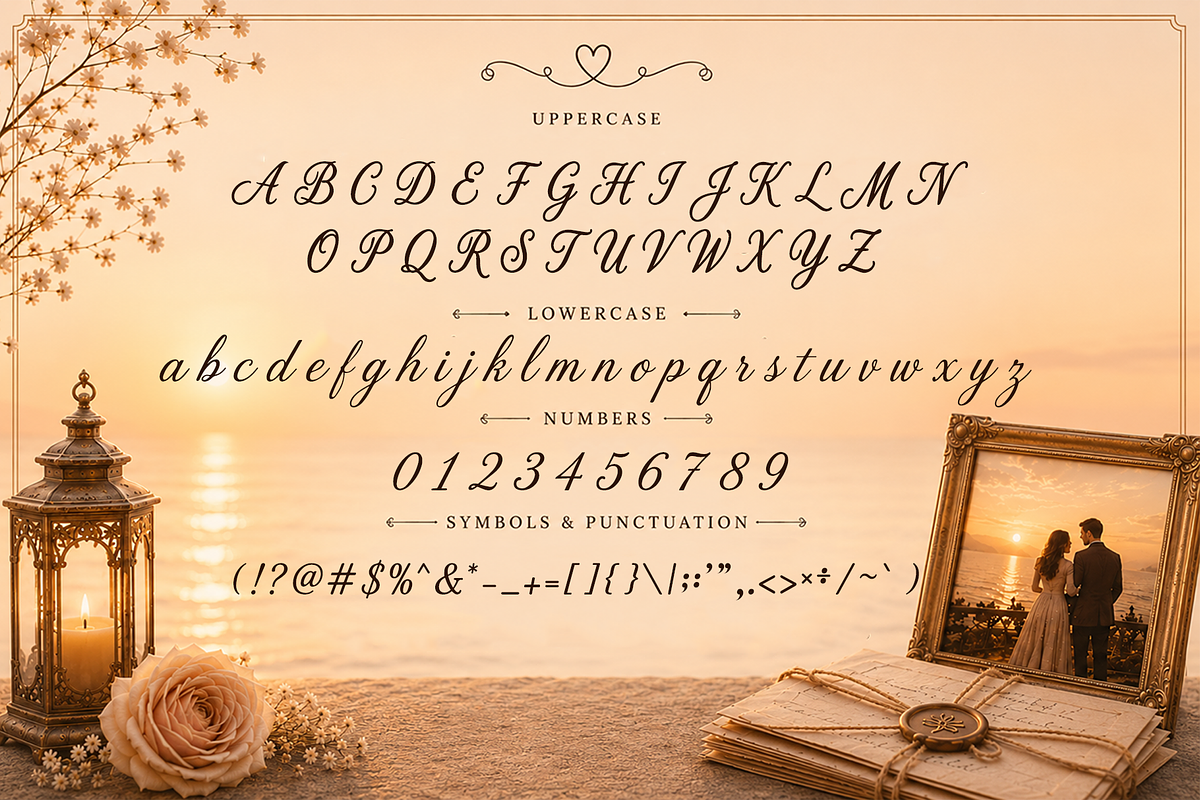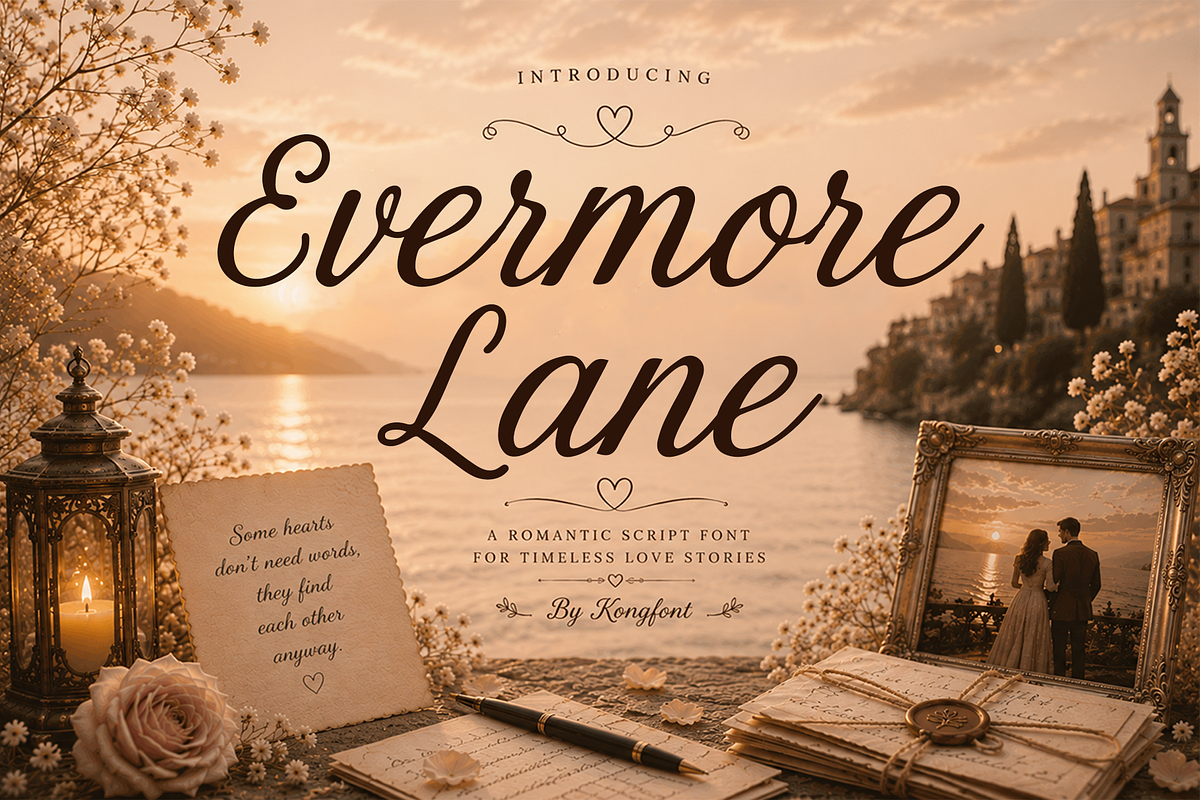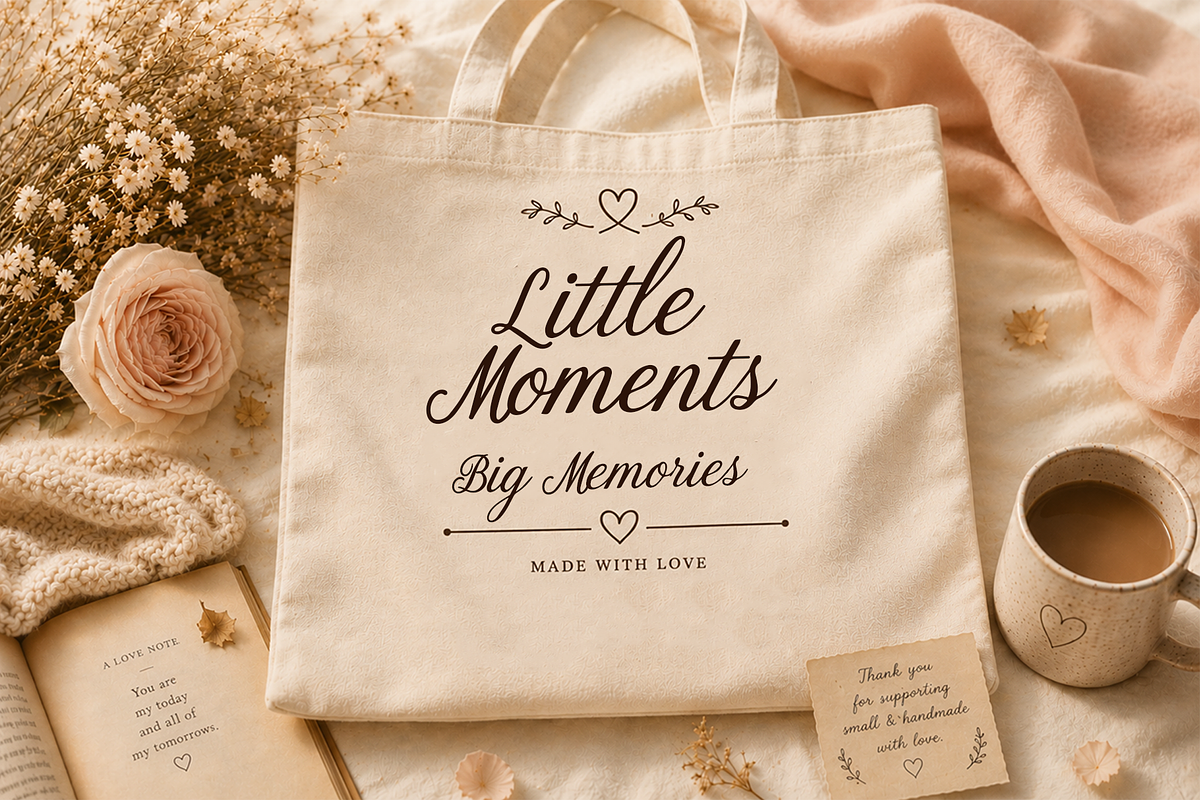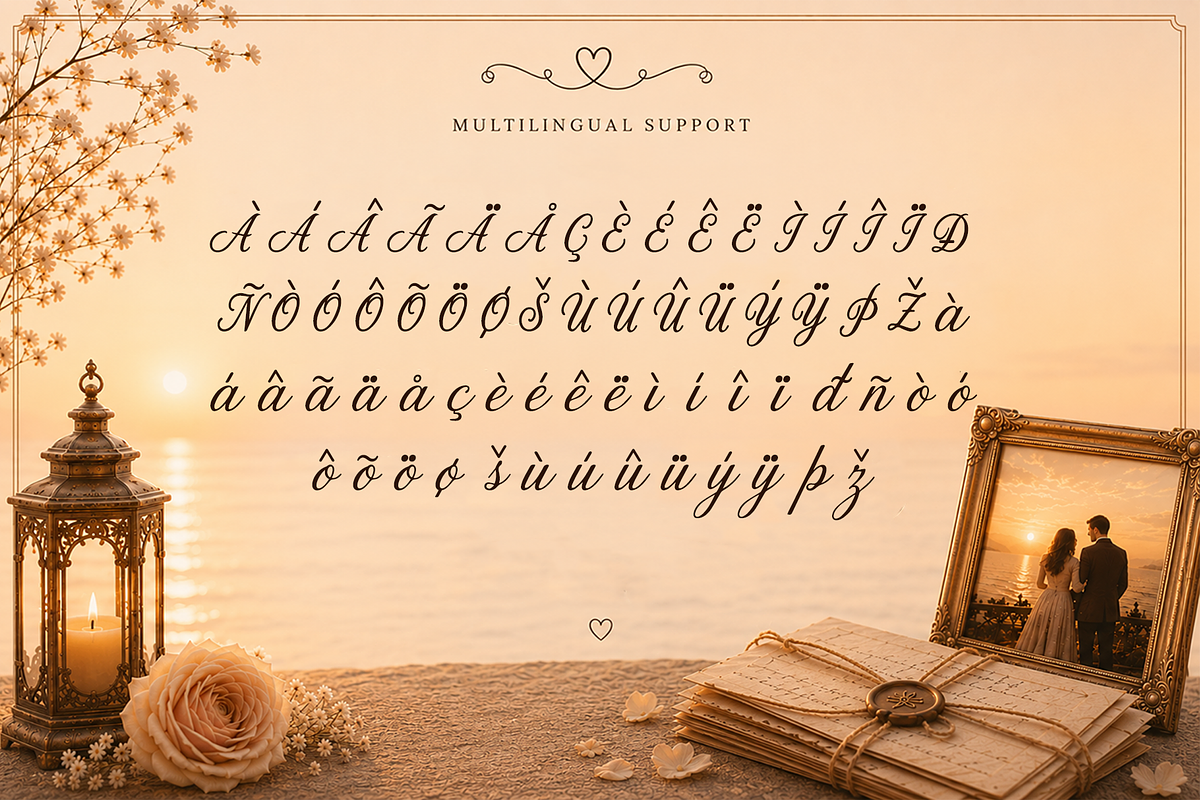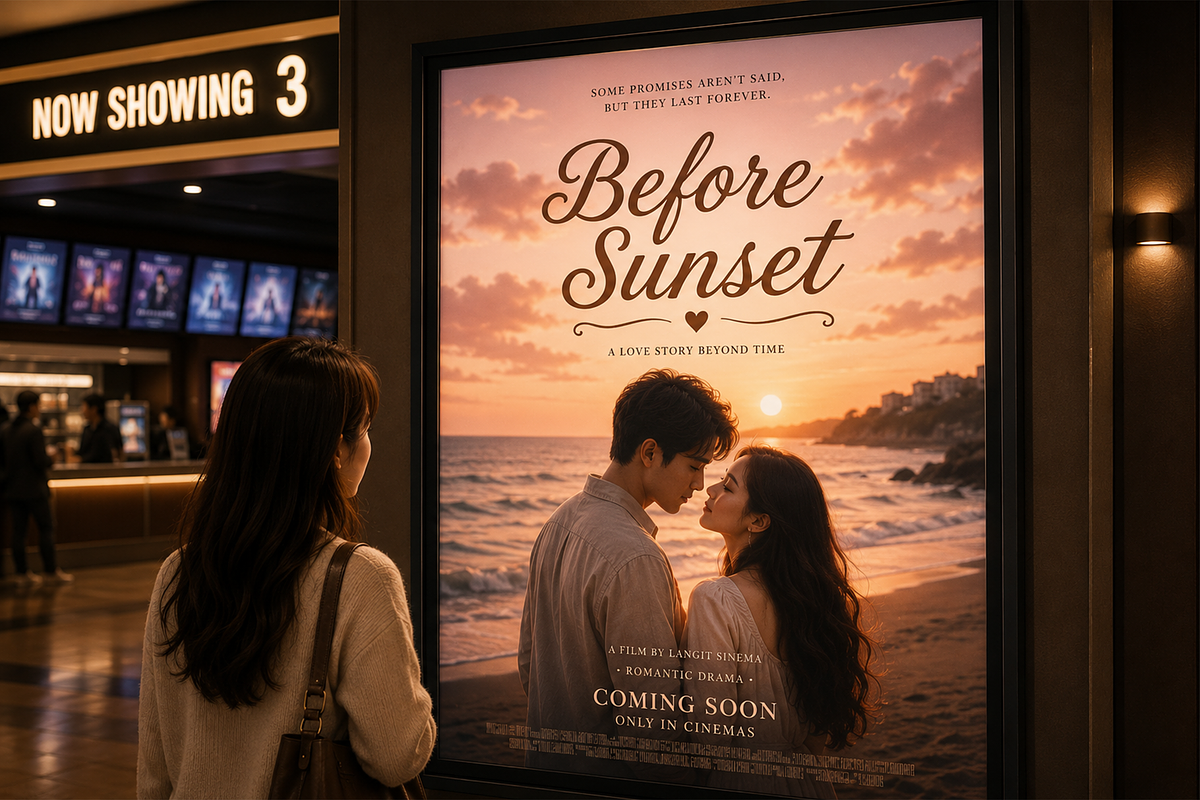
Evermore Lane - Romantic Script Font
Meet "Evermore Lane," a romantic script font inspired by timeless love stories, elegant handwritten letters, and graceful calligraphy. Designed with smooth flowing strokes and expressive curves, this typeface brings warmth, intimacy, and sophistication to every creative project.
With its natural movement and charming personality, Evermore Lane works wonderfully as a statement font for headlines, names, signatures, and decorative typography. Pair it with a clean serif or minimalist sans serif to create sophisticated combinations for premium branding and romantic design compositions.